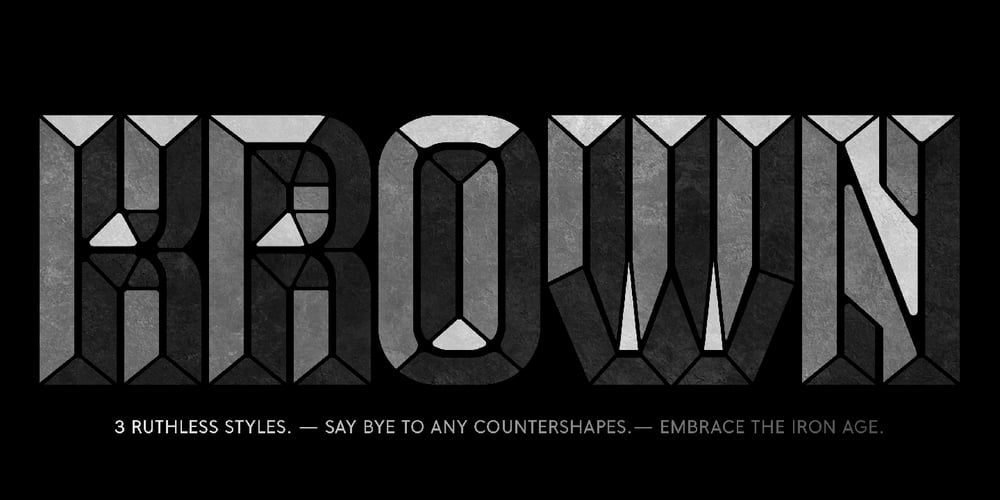
Kröwn
Kröwn font
Kröwn Font Family was designed by Bruno Sellés and published by Vasava Fonts. Kröwn contains 3 styles and family package options. Kröwn is a ruthless display font family. It is presented in three styles that can be used stacked to create beveling and dimensional effects. Kröwn’s most distinctive feature is the absence of counter shapes, or at least its minimum impact. All counter shapes width is the same as the separation between characters, this creates a blocky, strong and hardcore rhythm. Use it with precaution to build strong titling, powerful logotypes or short letterings. With Kröwn, the less is more, the bigger the better. Its visual style draws inspiration from sword and sorcery fantasy genre and historical periods as the middle age.